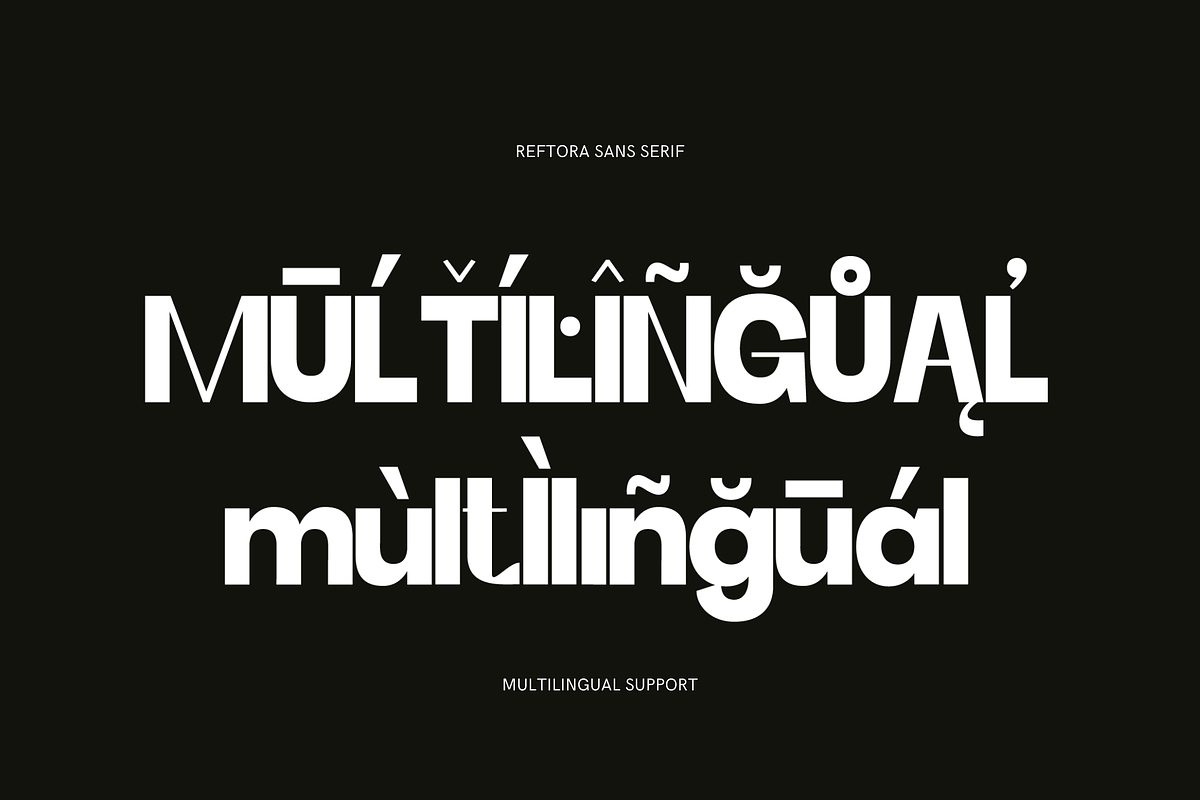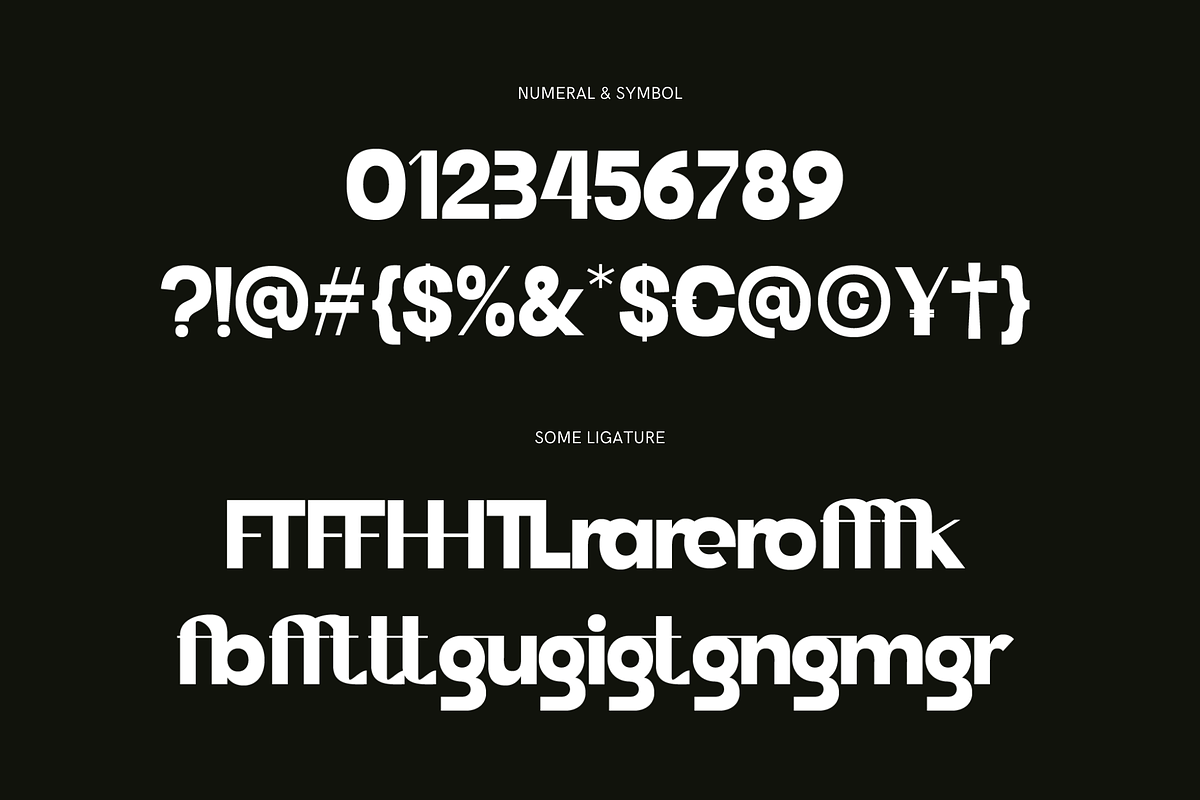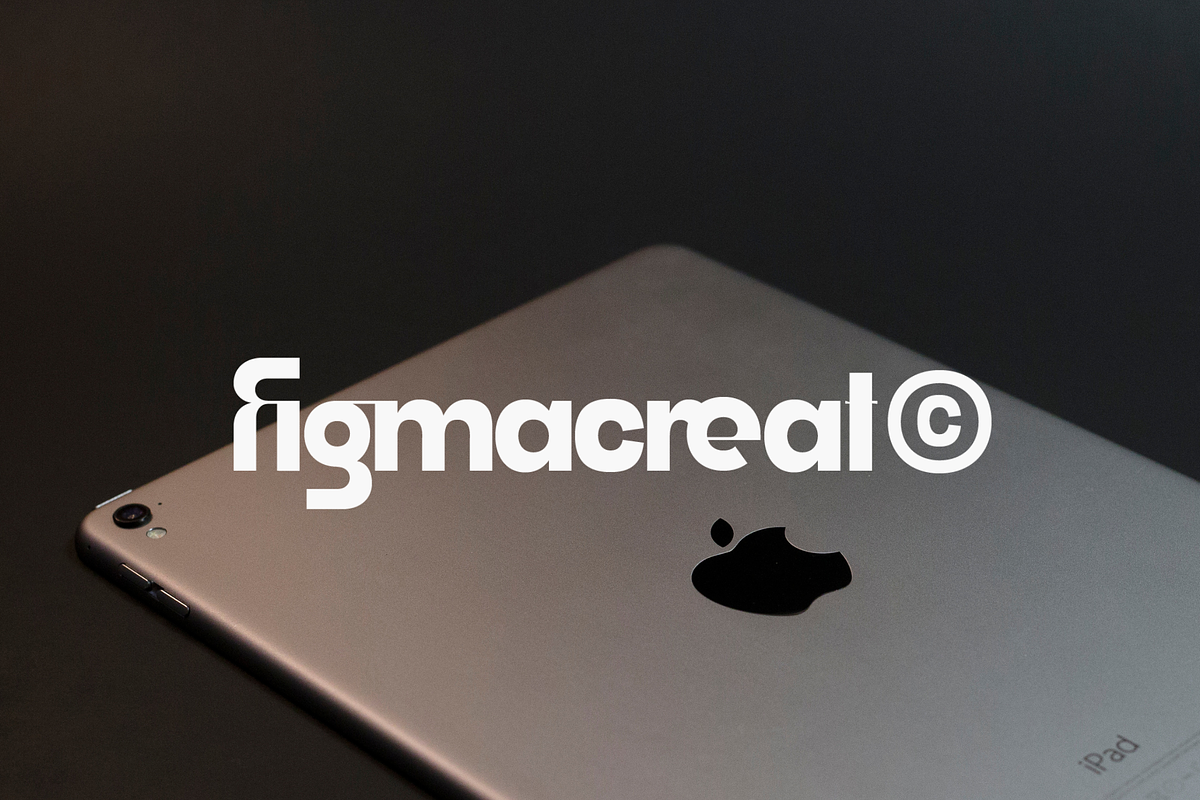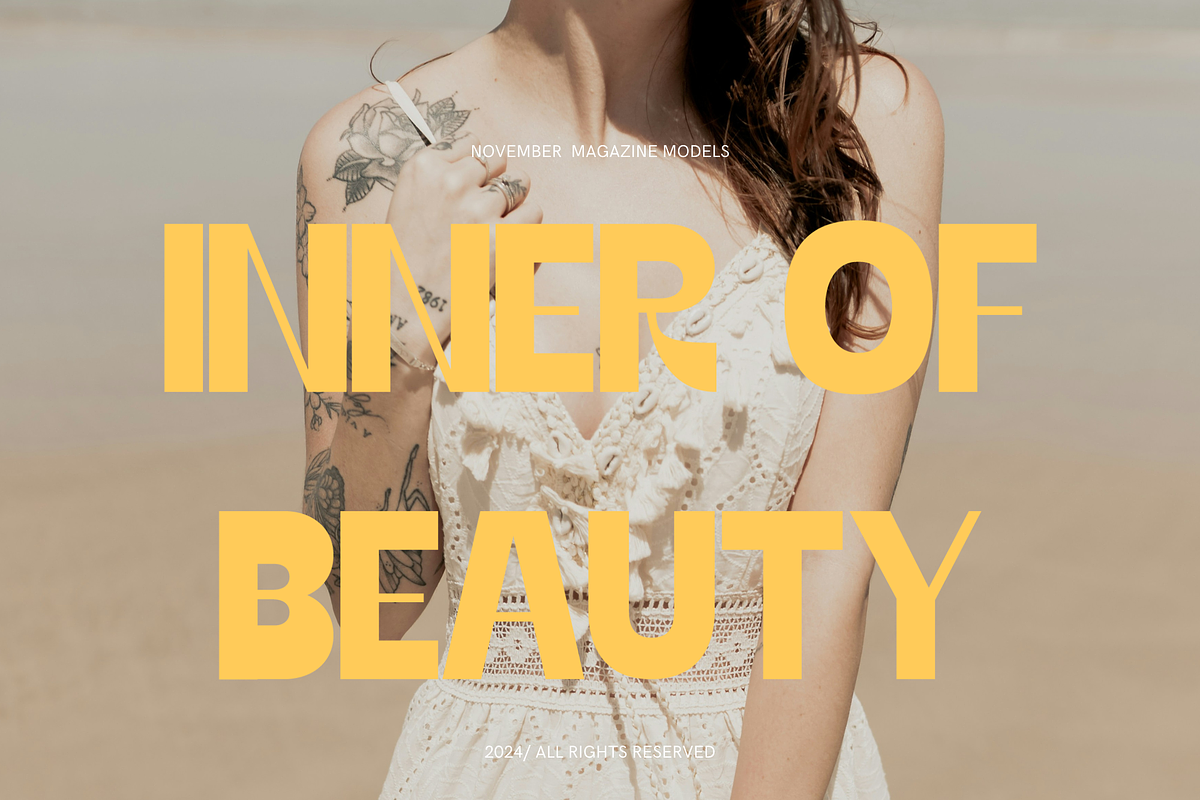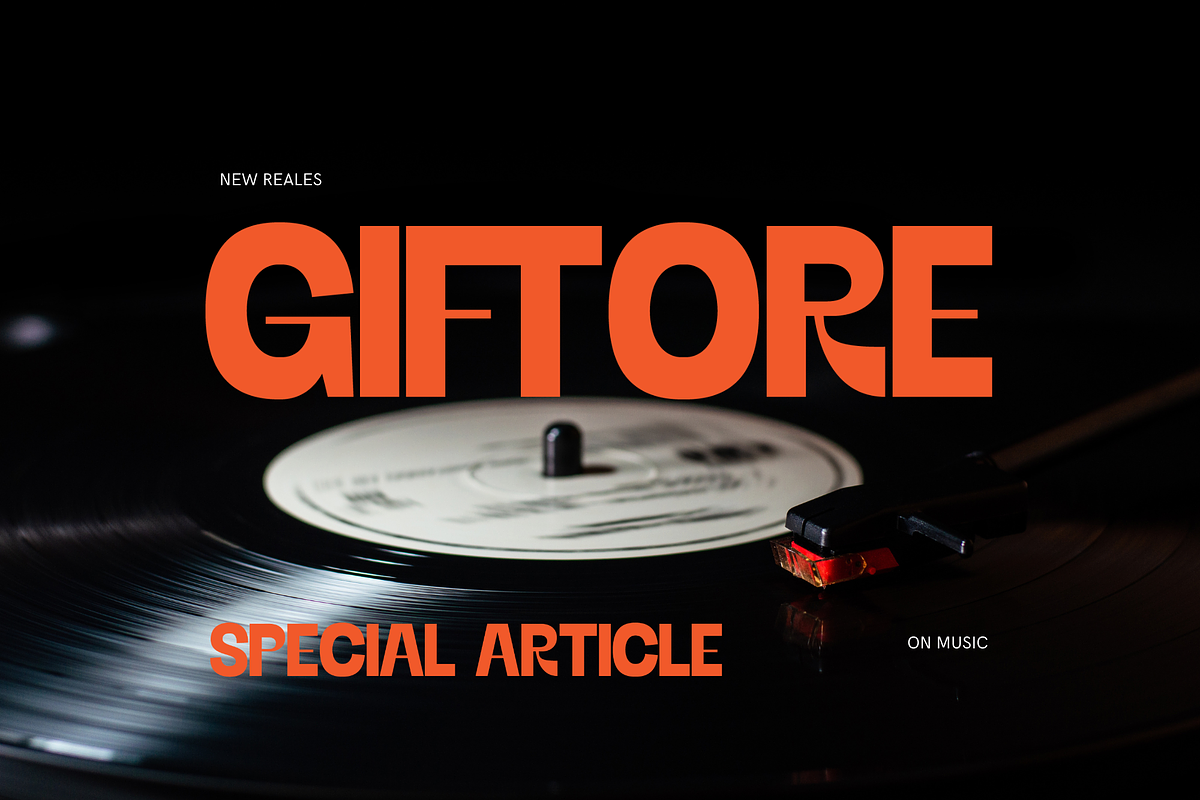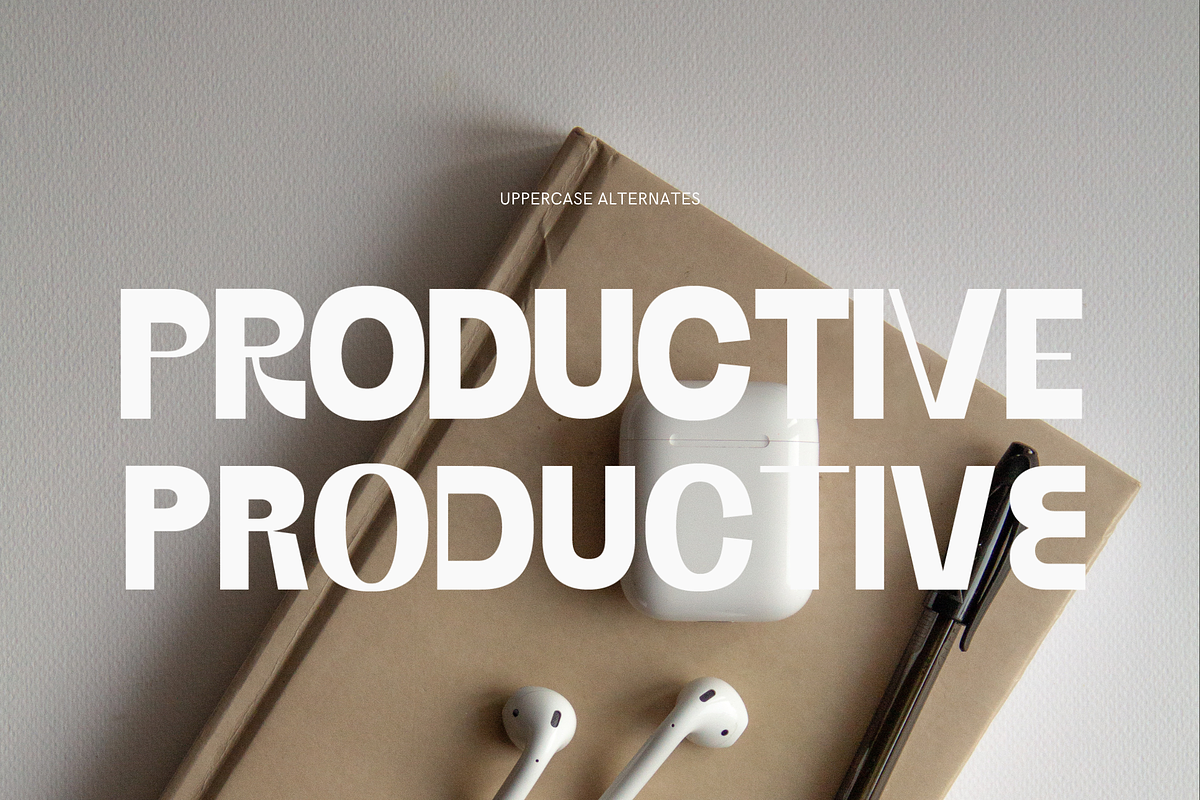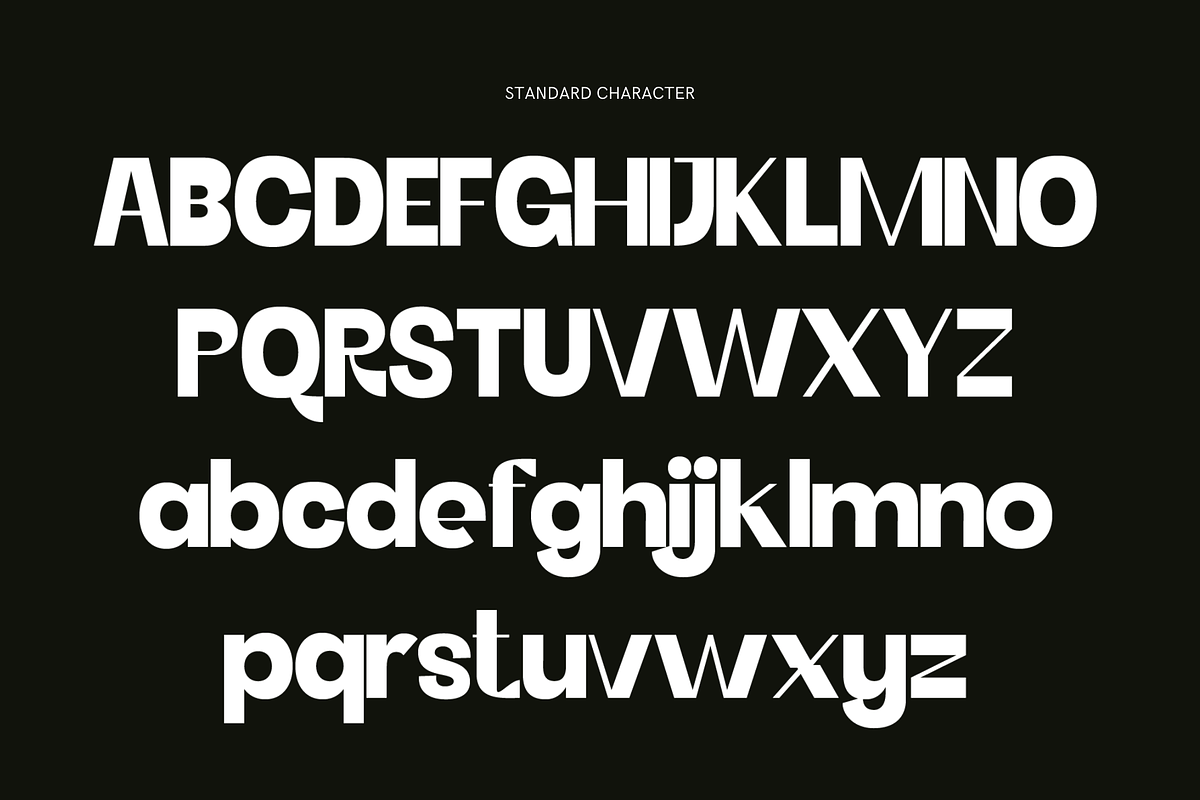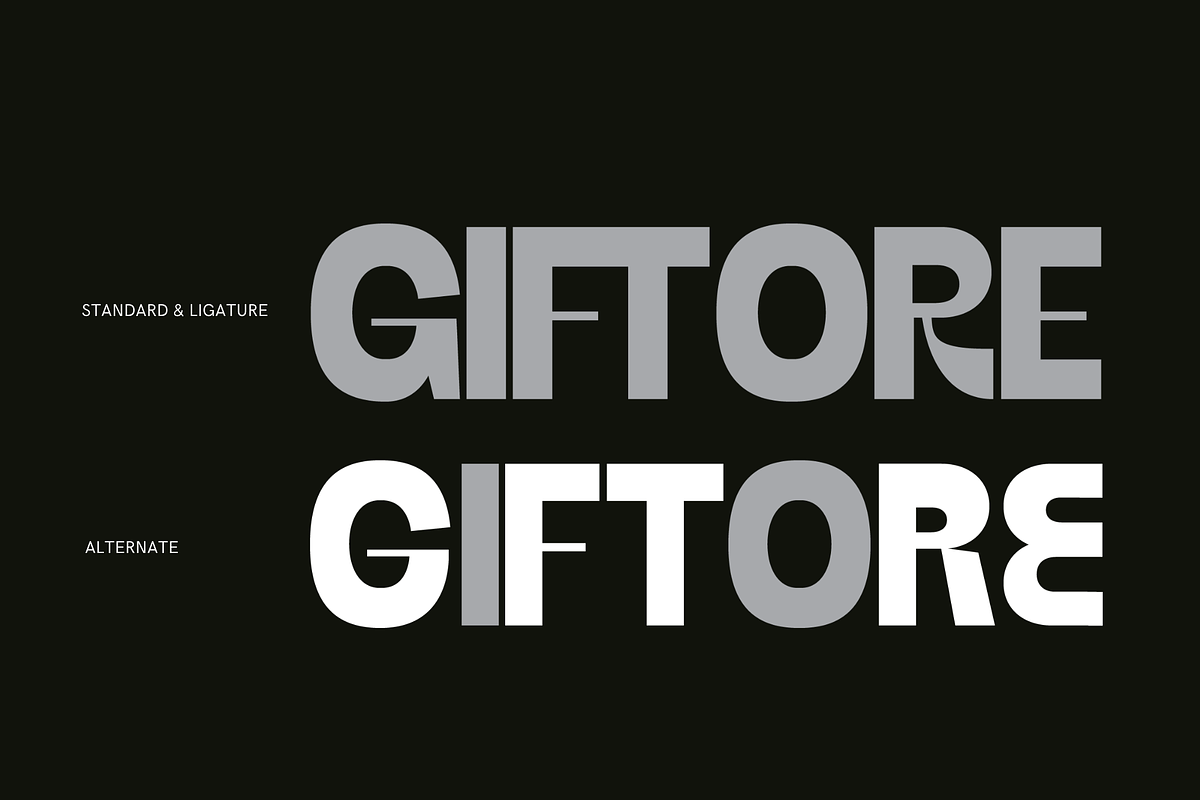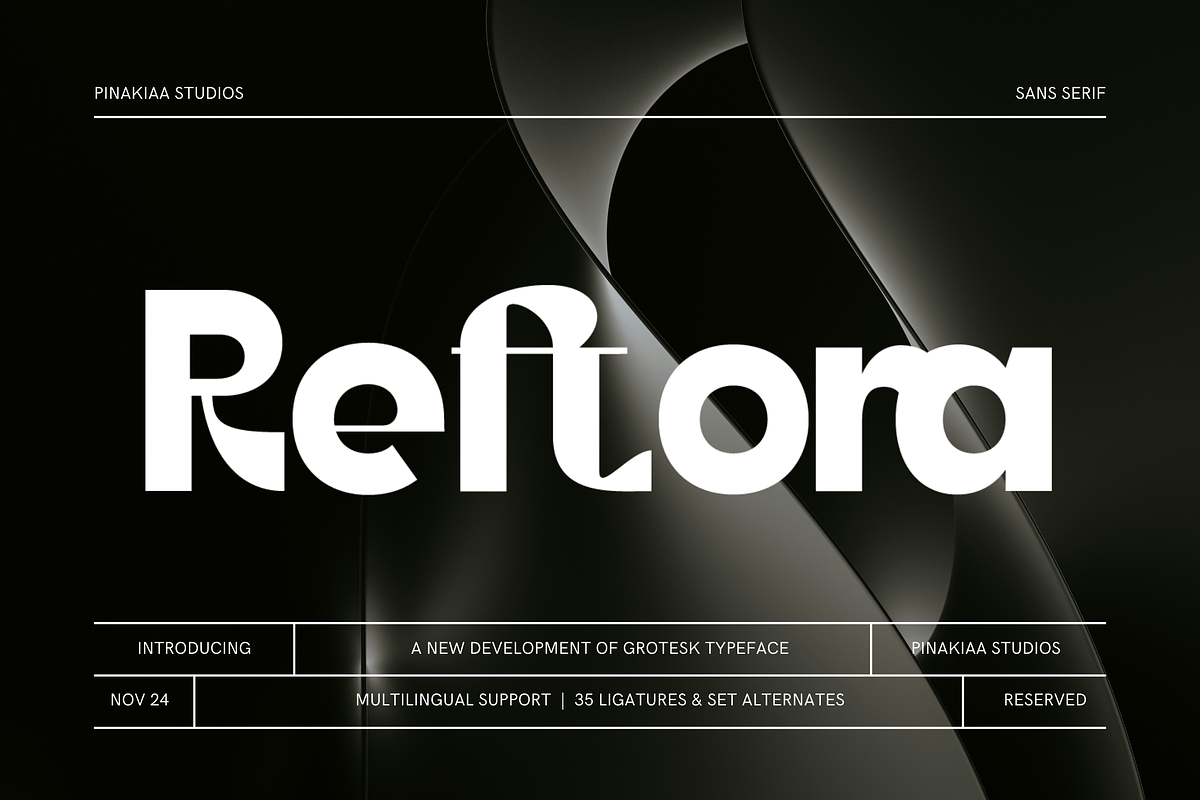
Reftora Modern Sans
Reftora Modern Sans-Serif A bold step into the future of typography, Reftora is a modern sans-serif typeface that redefines simplicity and elegance. Designed by Pinakiaa Studios, this typeface features 35 ligatures and alternate sets, offering unparalleled versatility for branding, editorial, and digital projects.
With its clean lines and striking shapes, Reftora bridges the gap between functionality and style. It also supports multiple languages, making it a perfect choice for global creatives seeking a sleek, professional edge.
Unleash the potential of Reftora—where innovation meets timeless design.